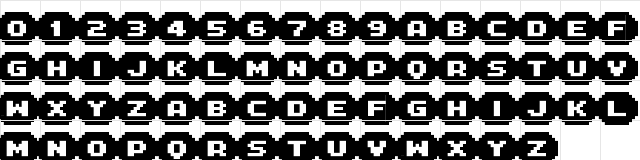
FFF Interface08b Regular Free Font
FFF Interface08b Regular
Design Context for FFF Interface08b
FFF Interface08b is a composed and adaptable typeface that performs quietly and consistently across a wide range of design contexts.